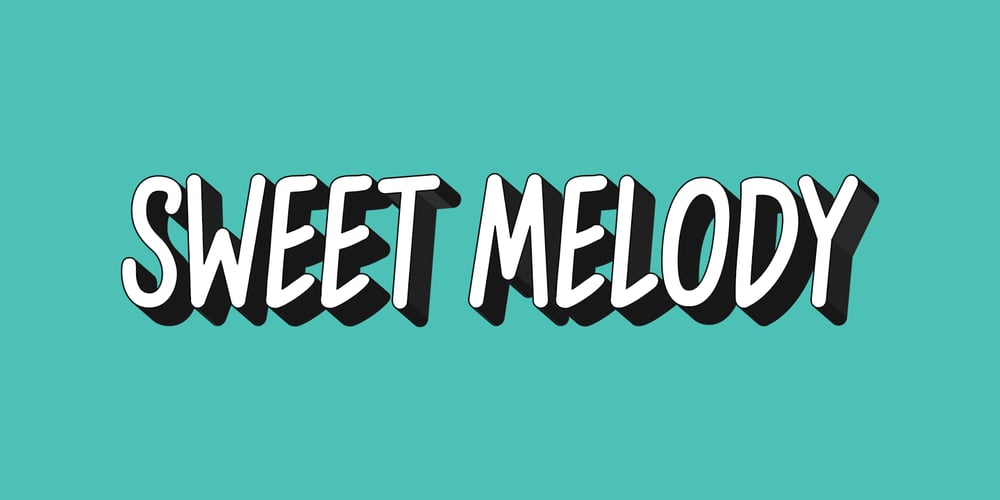
Sweet Melody Font Family was designed by Daniel Bak and published by Artcity. Sweet Melody contains 3 styles and family package options. Fun and playful childish font, perfect for comic books, book for kids, t-shirt designs, phone cases, greeting cards, invitations, mugs and so much more. If your project requires a fun look, then this font is for you.